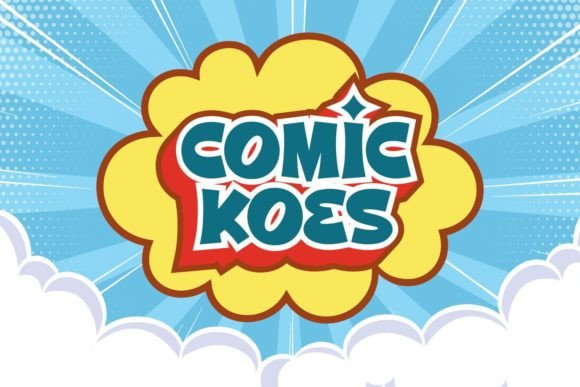
Journey into the world of Comic Koes, a whimsical and delightful display font created by Creative Fabrica Fonts. This charming font exudes playfulness and warmth, captivating audiences with its thickset glyphs and unique style. Unleash your imagination and add a touch of magic to your designs with Comic Koes.
Comic Koes is the perfect font for expressing joy and cheerfulness. Its playful nature brings life to book covers, posters, flyers, and kid-friendly projects. Create enchanting invitations and add a touch of whimsy to product packaging. The possibilities are endless with Comic Koes as your creative companion.
With its PUA encoding, Comic Koes grants you effortless access to a treasure trove of glyphs. Experiment with a variety of characters, symbols, and unique elements to make your designs truly shine. Let Comic Koes transport you to a world of creativity and enchantment.
Immerse yourself in the captivating world of Comic Koes, where imagination knows no bounds. This remarkable font is your gateway to creating captivating designs that evoke happiness and wonder. Unlock the potential of Comic Koes today and embark on a creative journey like no other.